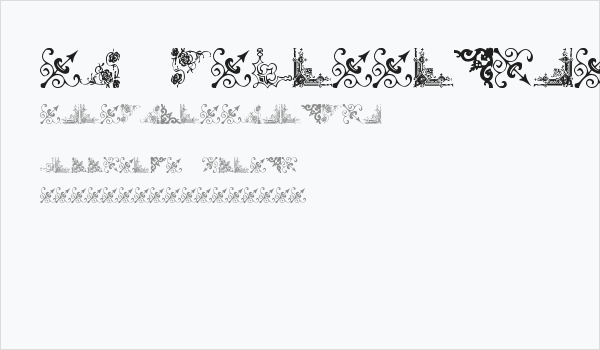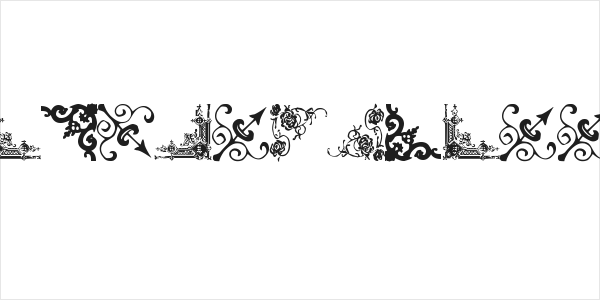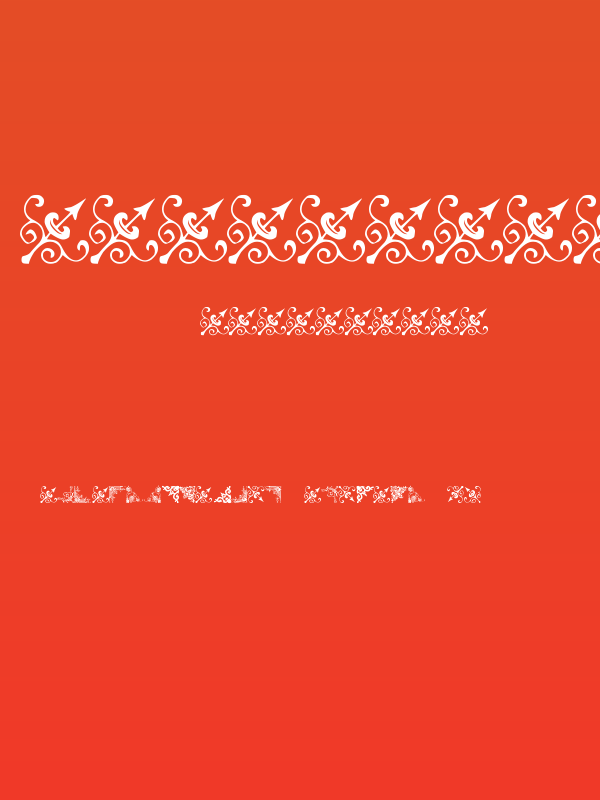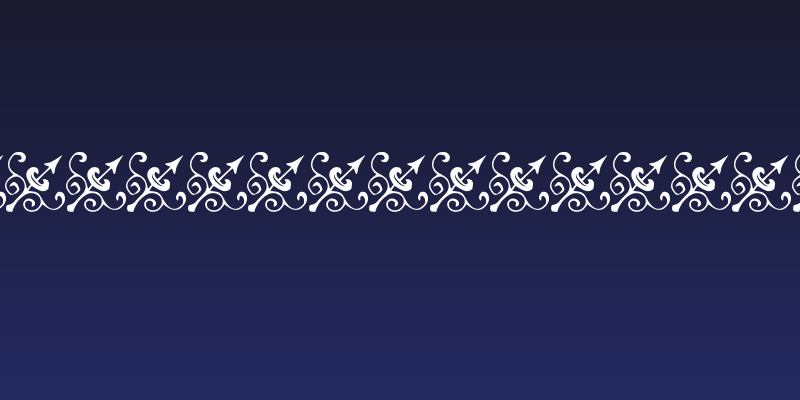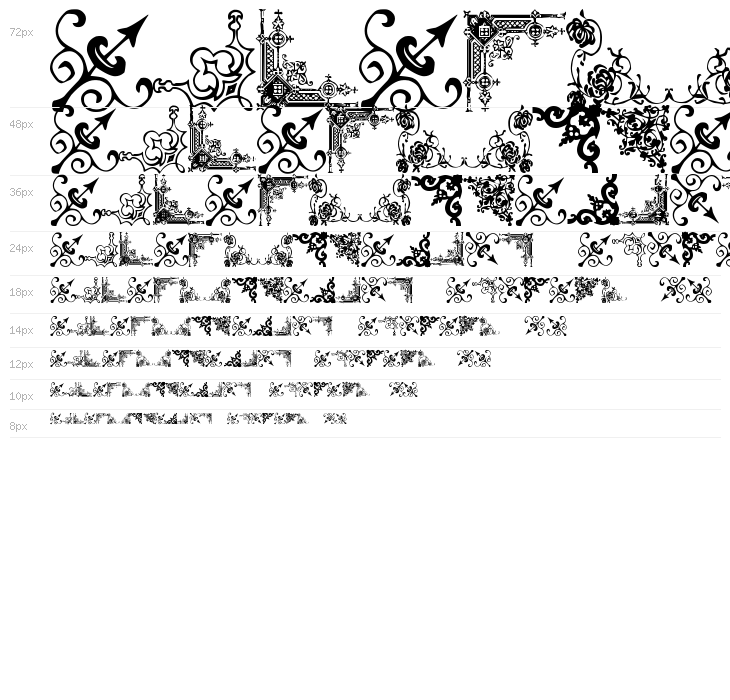
Vintage Decorative Corners 11 Font
Vintage Decorative Corners 11 Description
Ornamental vector-style decorative elements featuring intricate swirls, floral motifs, and arrow-like accents, arranged in repeating horizontal borders and corner embellishments. The designs are highly detailed and symmetrical, evoking a vintage or Victorian aesthetic.
| Overall Style | Vintage, Decorative |
| Use Case | Borders, Frames, Decorative accents |
| Proposed Projects | Wedding invitations, certificates, vintage posters, book covers, decorative frames, scrapbooking, branding for luxury or antique-themed products. |